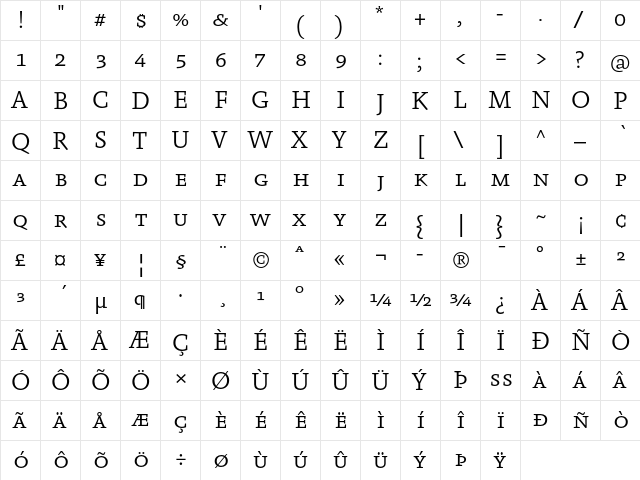
Absara TF Light SC Regular Font Preview
Absara TF Light SC Regular
Design Context for Absara TF Light SC Typeface
Absara TF Light SC offers clean, dependable letterforms without strong stylistic allegiance, making it a practical choice for designers who need flexibility. Its slender proportions lend an understated elegance to any composition.